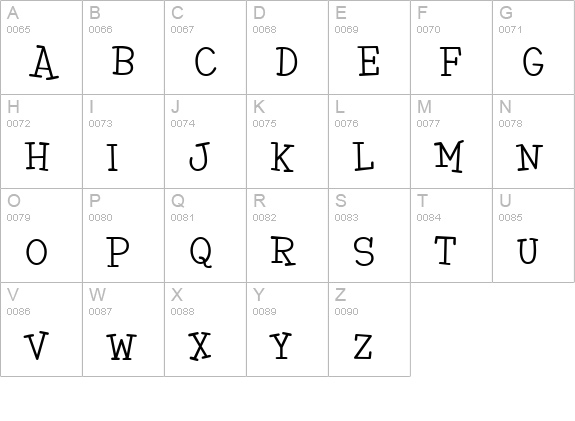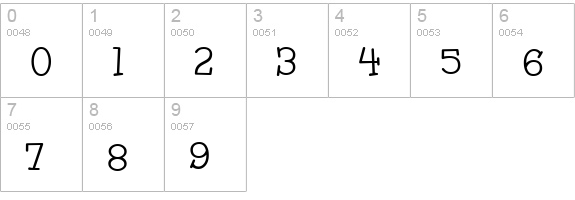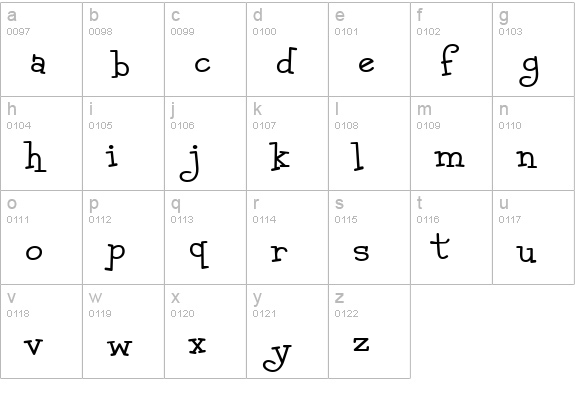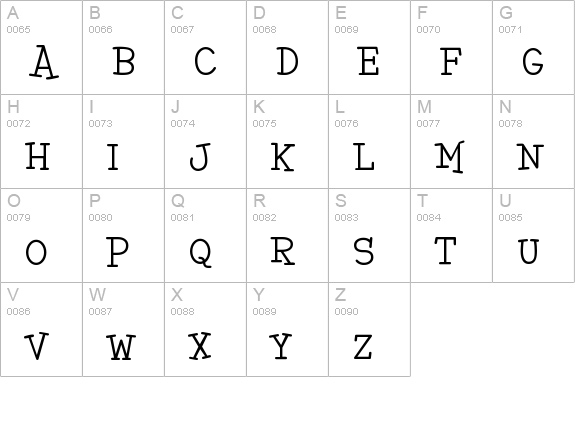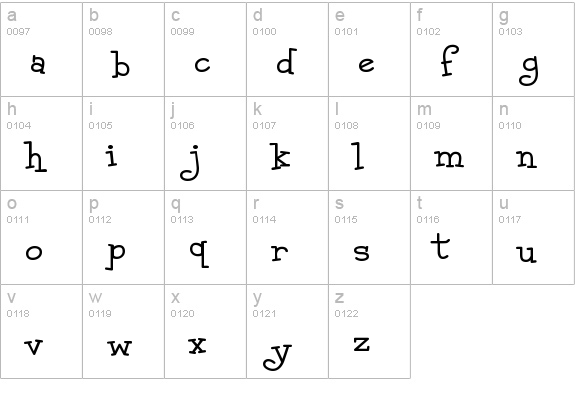
Malihini Tahitian BTN Font Details
Introducing Malihini Tahitian BTN, a mesmerizing font that effortlessly captures the essence of tropical paradise. With its graceful curves and elegant strokes, this font exudes a sense of warmth and serenity, transporting you to the enchanting islands of Tahiti. Malihini Tahitian BTN is the perfect choice for projects that require a touch of exoticism and sophistication. Its unique letterforms are inspired by the traditional Tahitian art, adding a distinctive flair to any design. Whether you're creating invitations for a beach wedding, designing a travel brochure, or adding a touch of tropical charm to your branding, this font will instantly elevate your work to new heights. What makes Malihini Tahitian BTN even more enticing is that it is freely available to download at FontsMarket.com. Yes, you read that right – this extraordinary font can be yours without any cost! Say goodbye to expensive fonts and hello to this treasure trove of creativity. With Malihini Tahitian BTN, you can explore endless possibilities without breaking the bank. Not only is Malihini Tahitian BTN visually stunning, but it is also incredibly versatile. It comes in a range of weights and styles, allowing you to find the perfect fit for any project. Whether you prefer a bold and impactful look or a delicate and refined aesthetic, this font has you covered. Adding to its charm, Malihini Tahitian BTN is exceptionally easy to use. Its clean and well-structured design ensures legibility across various mediums, from print to digital. With its extensive character set and multilingual support, you can confidently communicate your message in different languages and reach a global audience. So why wait? Embrace the spirit of the islands with Malihini Tahitian BTN and let your creativity flourish. Download this extraordinary font for free at FontsMarket.com and experience the beauty of Tahiti in every letter.